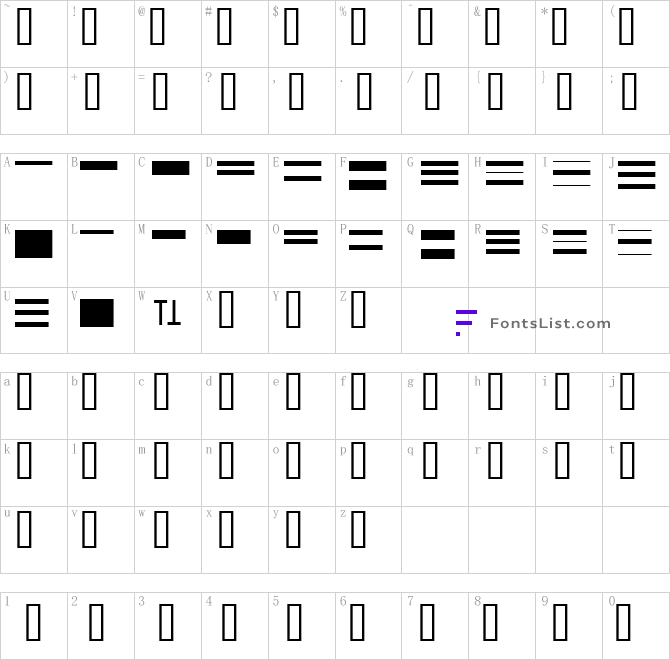
- Font Name:BartonLine
BartonLine.ttf is a very beautiful artistic font, BartonLine.ttf is widely used in the design and printing of various books and pictures,BartonLine.ttf has a strong visual impact,BartonLine.ttf is a commonly used font in newspapers, magazines and books, and is used in posters, e-commerce Poster design, store design, logo design, font design and other fields.BartonLine.